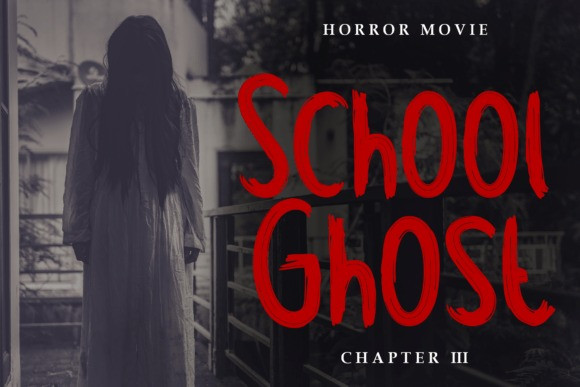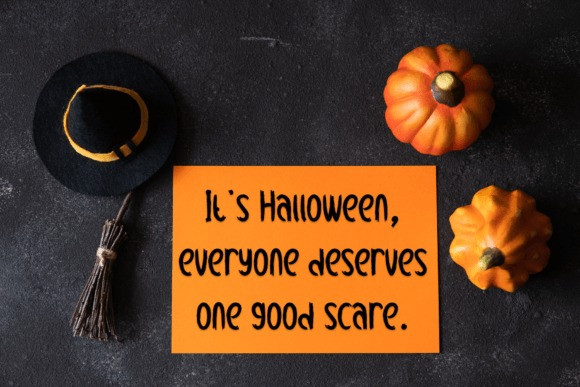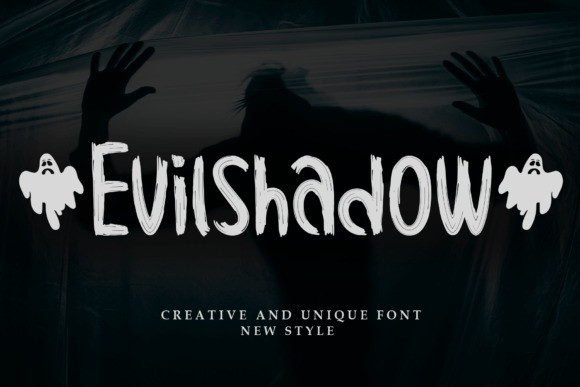
Evilshadow Brush Font
Evilshadow Brush Font, this is a bold and vibrant handwritten display font. Cute and fun, this font is ideal for writing posters, flyers, movie titles, cards, or any other design that might need a fun touch!